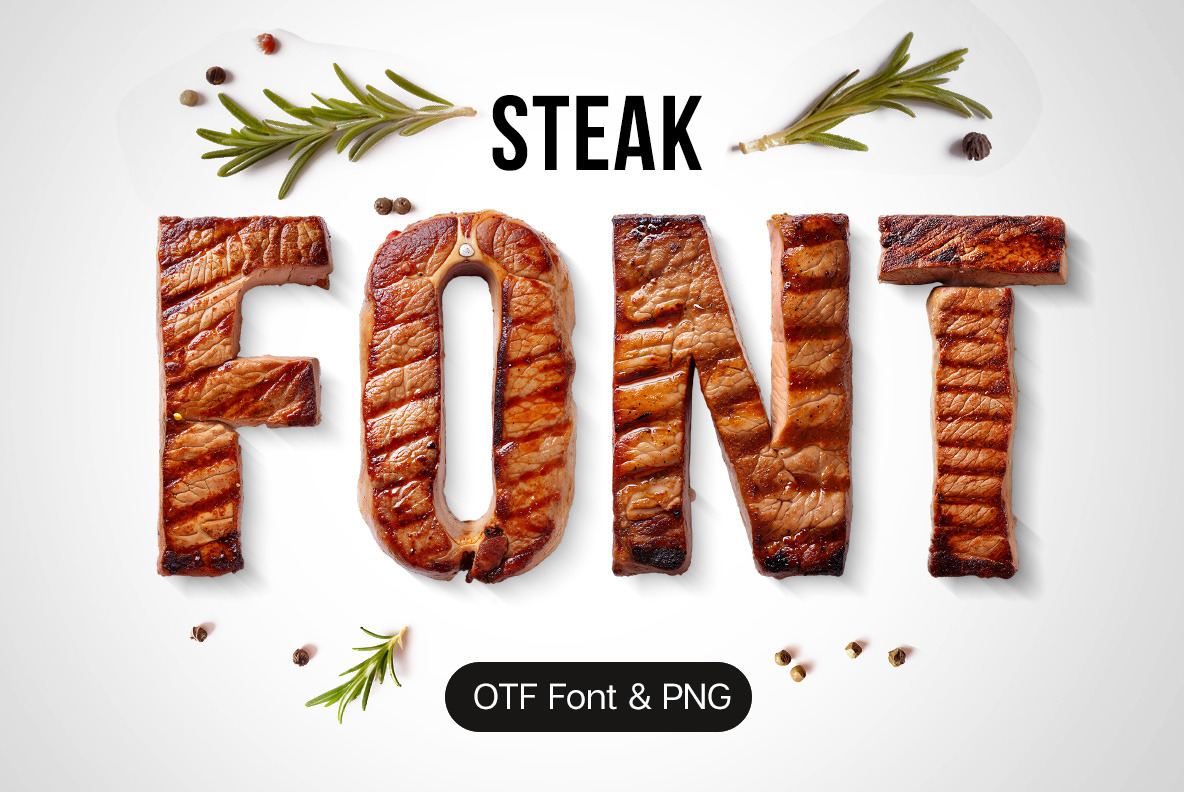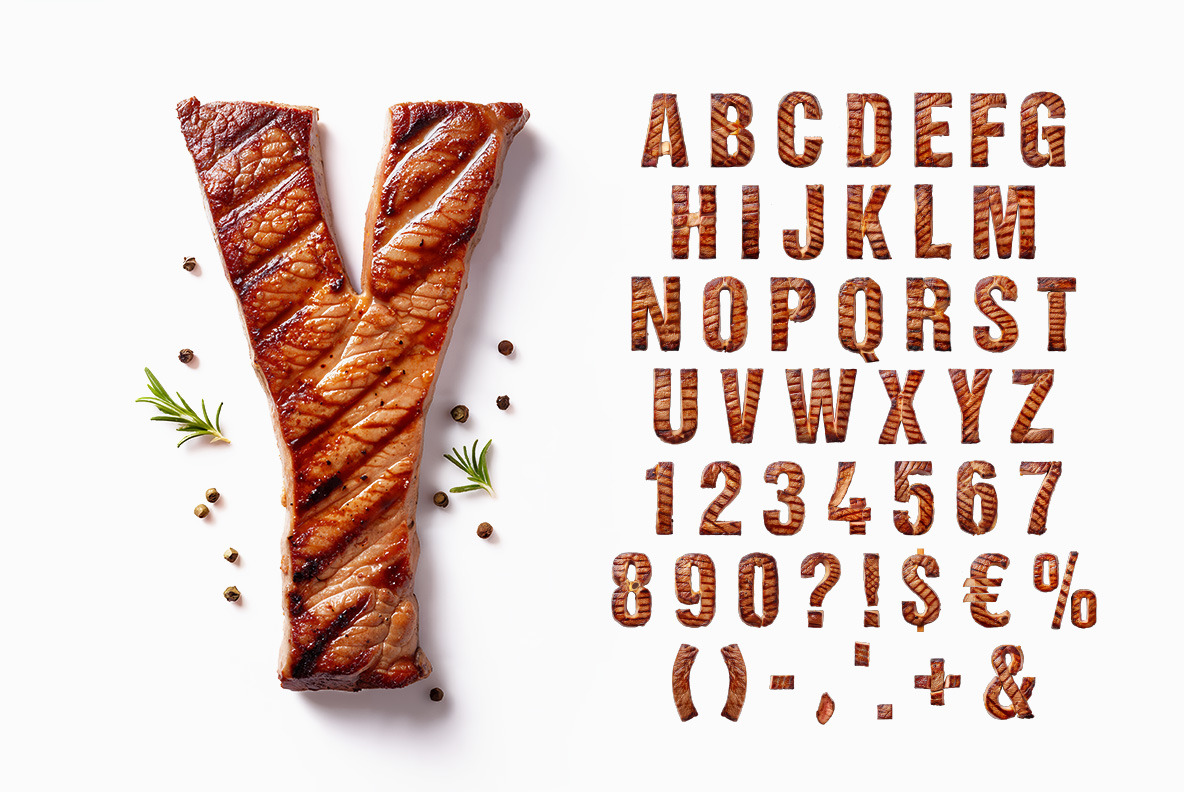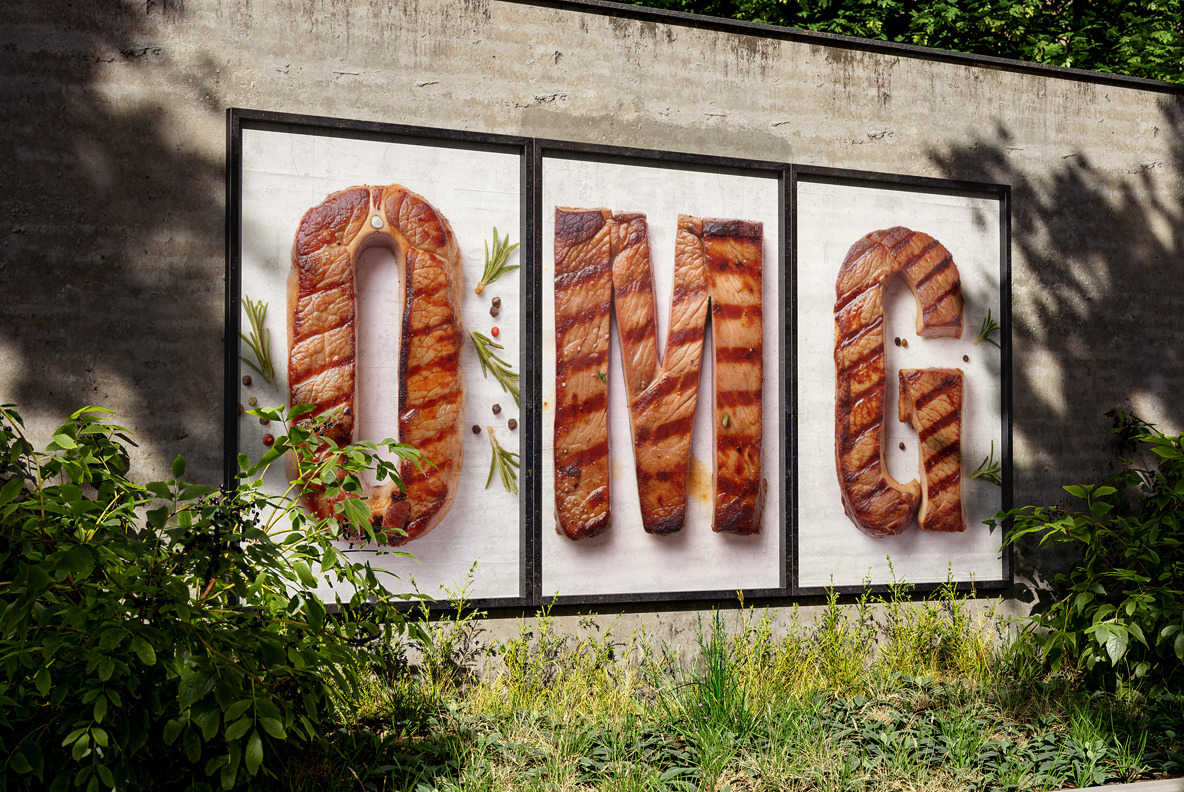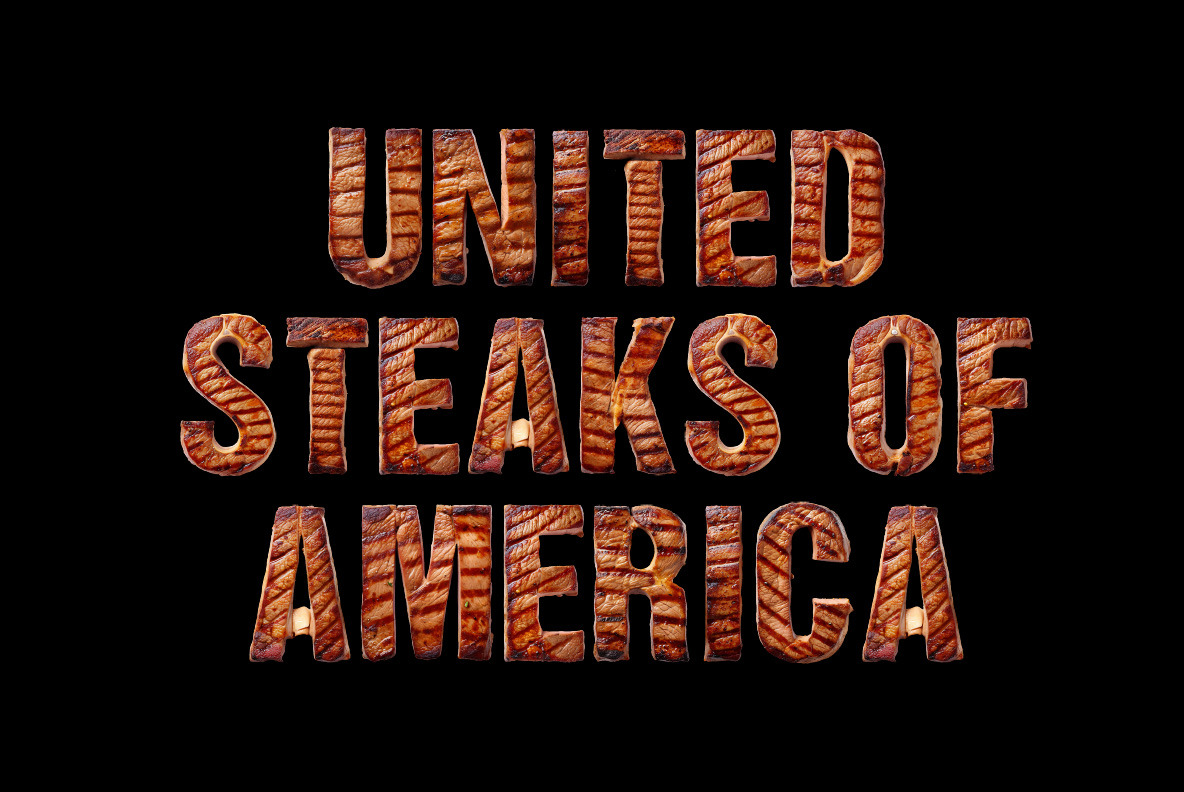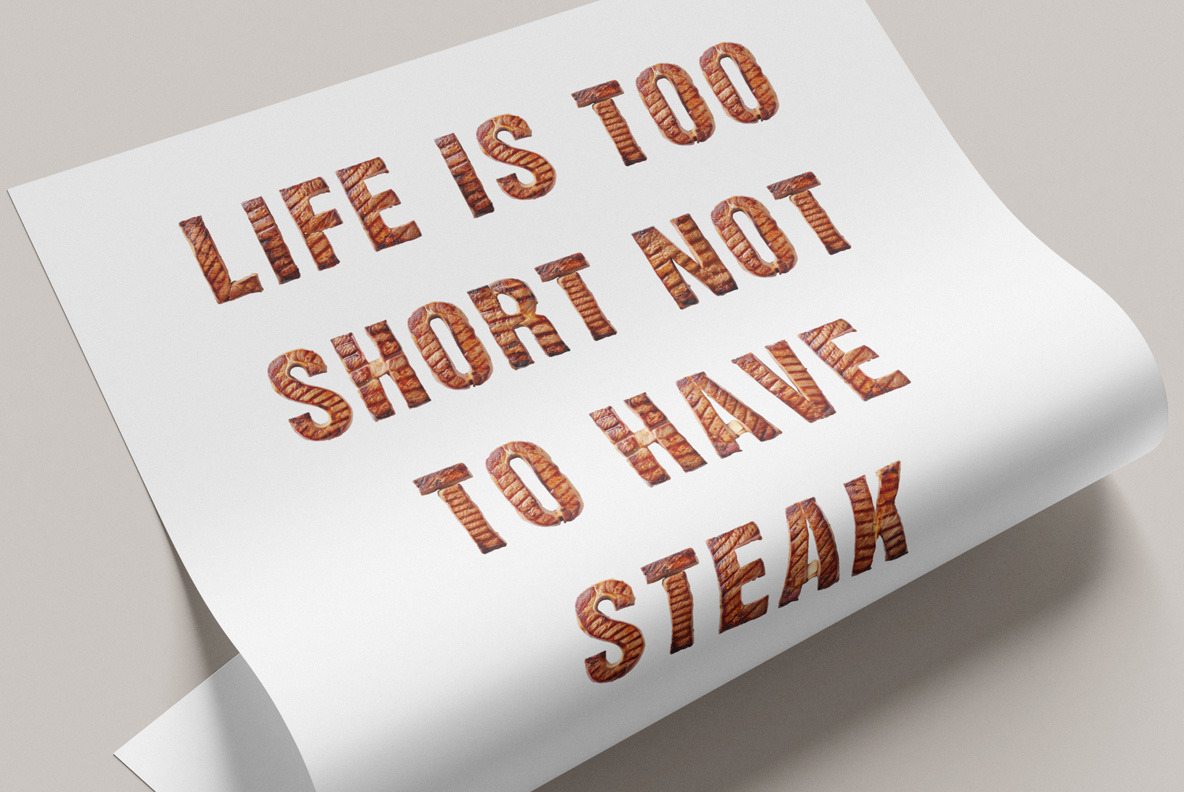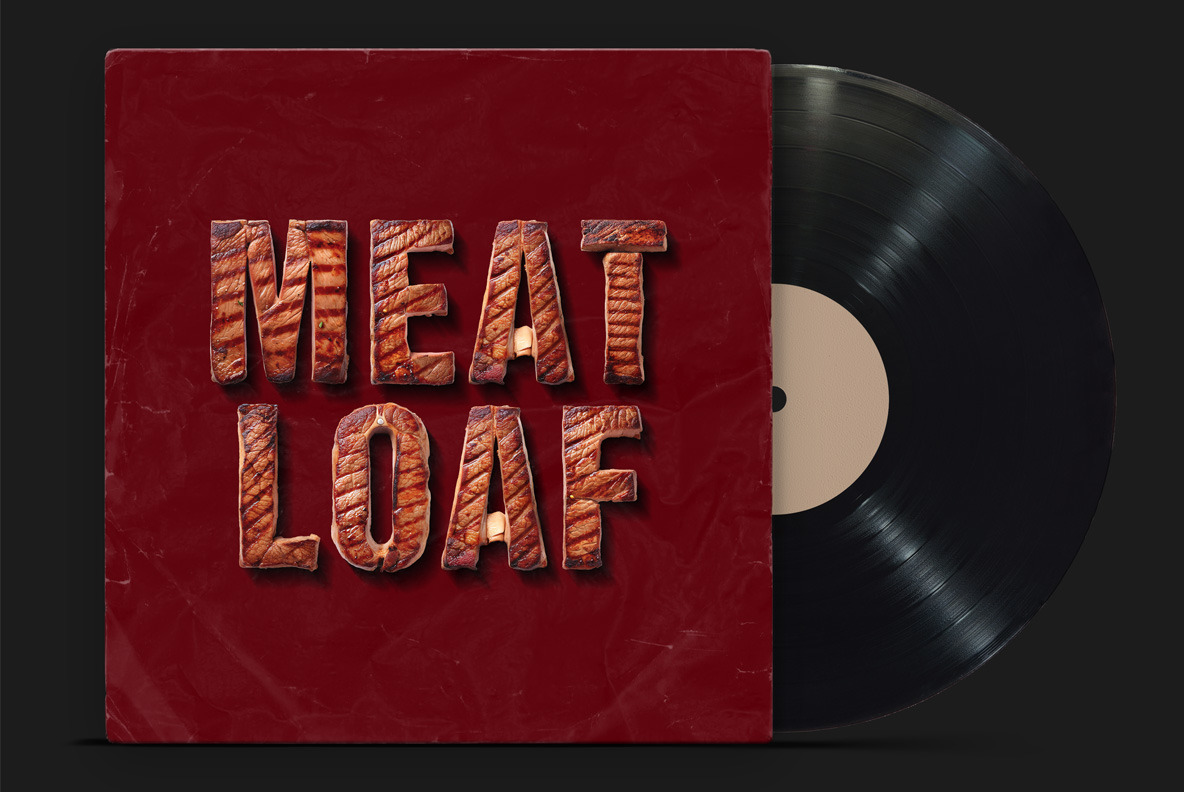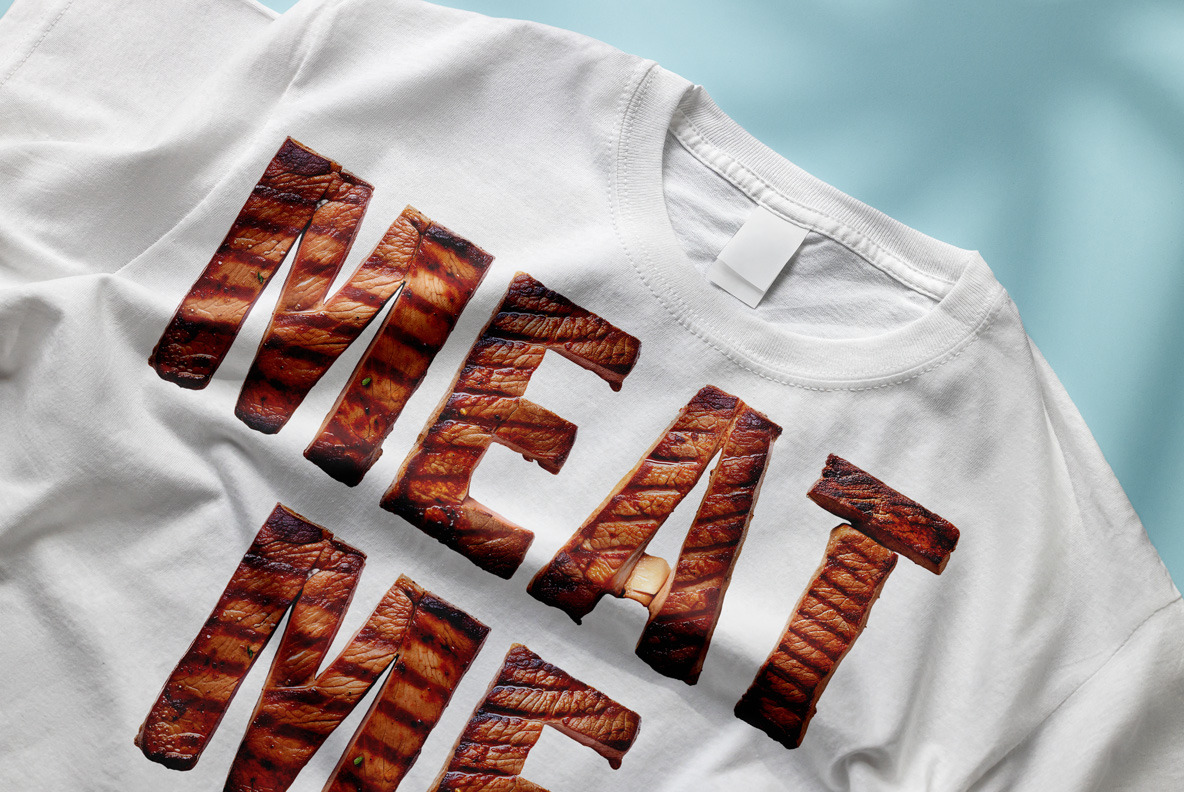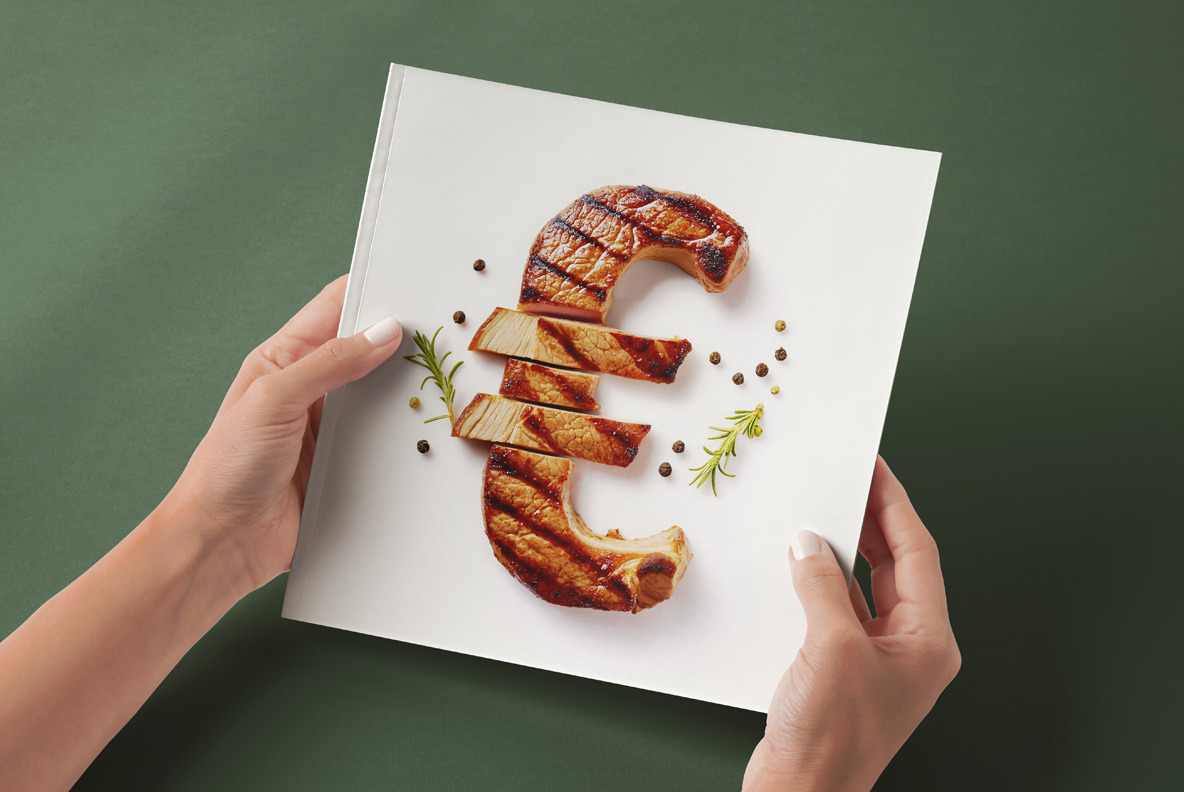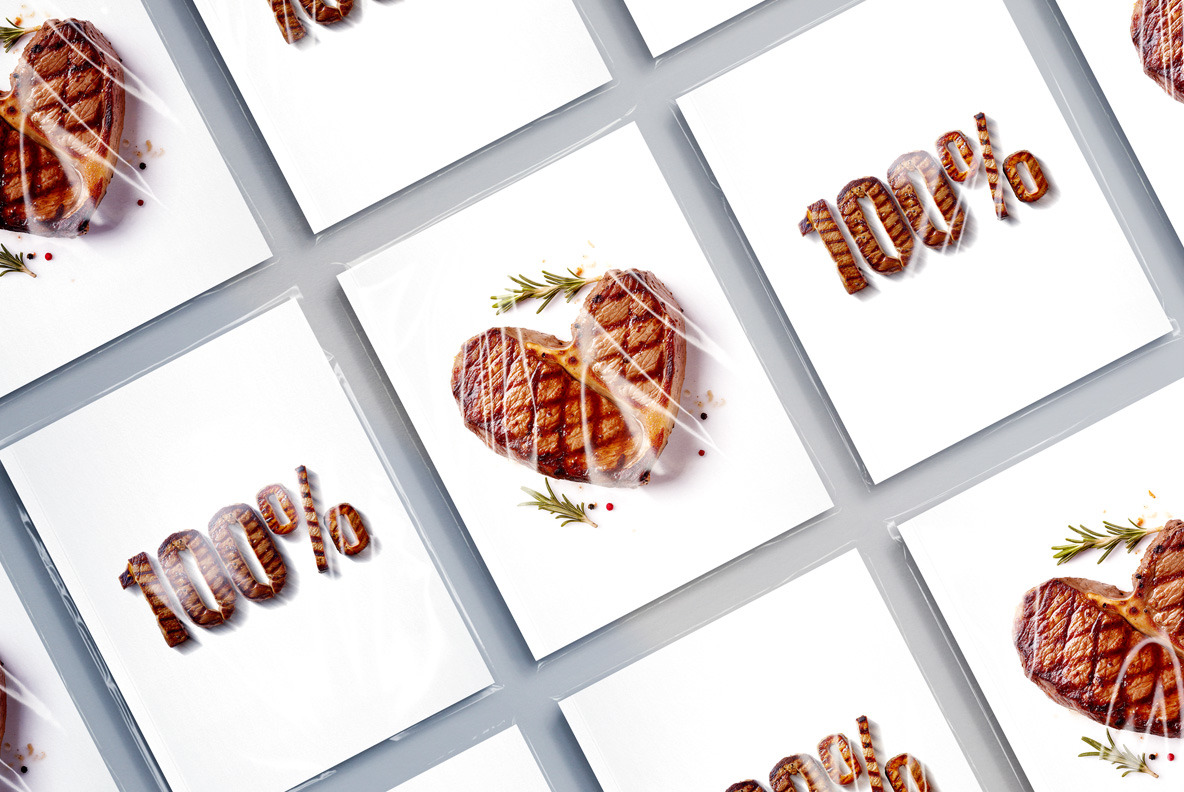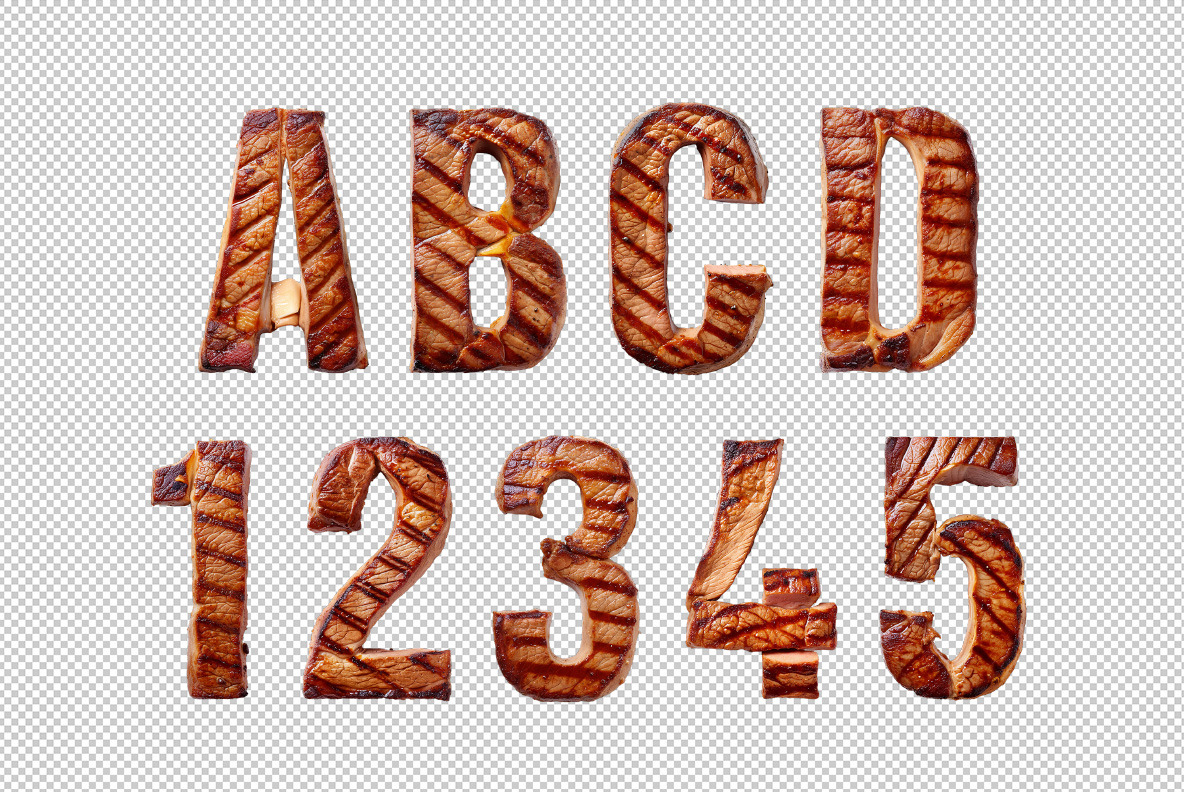
Steak Font
Grilled. That’s the first thing that comes to mind with the Steak Font. Yeah, you heard me—Steak Font. Each letter looks like it was carved out of a juicy ribeye, which is either the pinnacle of creativity or a cry for help from a designer who's been spending way too much time at steakhouses. Typography made of meat—imagine that. Every 'A' is a sirloin, the 'B' is a brisket, and the whole thing just screams, "I’m delicious!" But also, slightly alarming. I mean, do you really want to be reading an alphabet that's actively making you hungry?
Steak Font. A high definition OpenType Font. Contains uppercase characters, numerals and basic punctuation. (Draw height roughly 800 pixels). All letters and glyphs that comprises this font you can see on the preview.